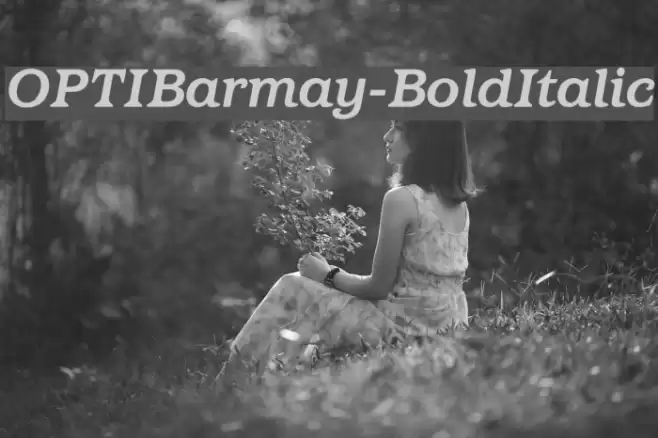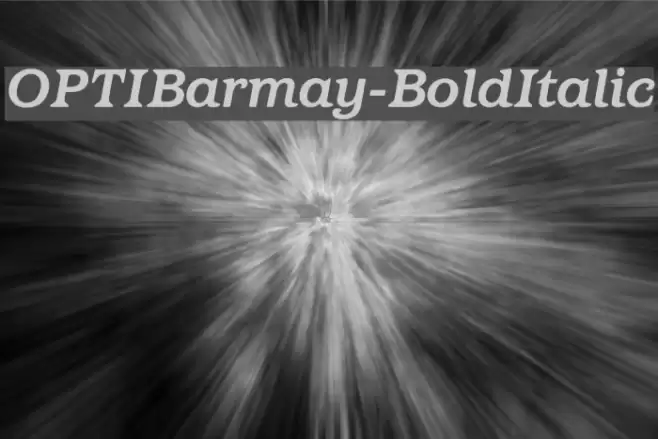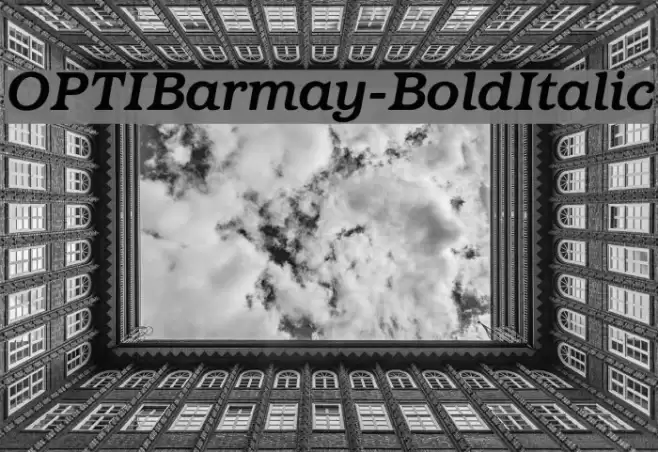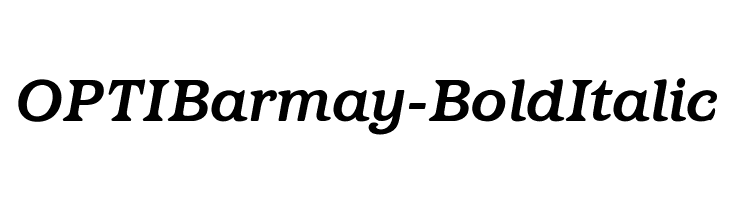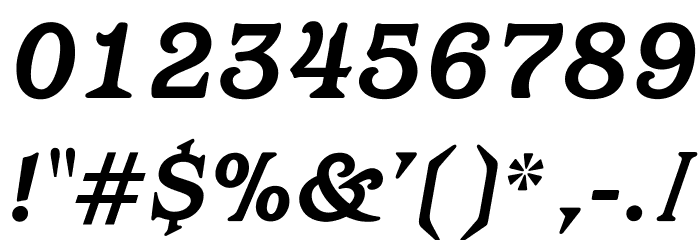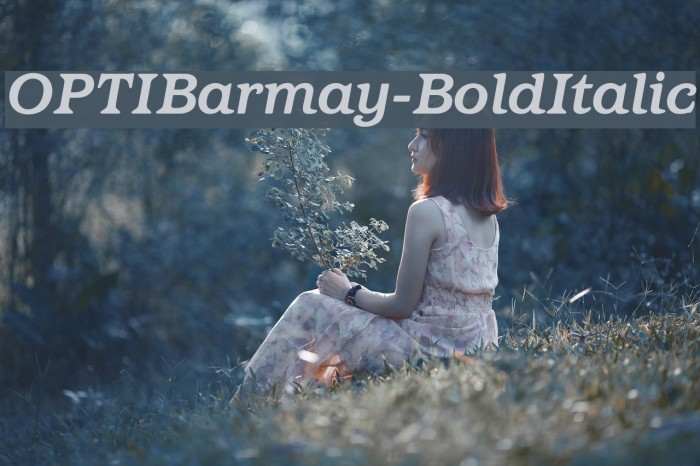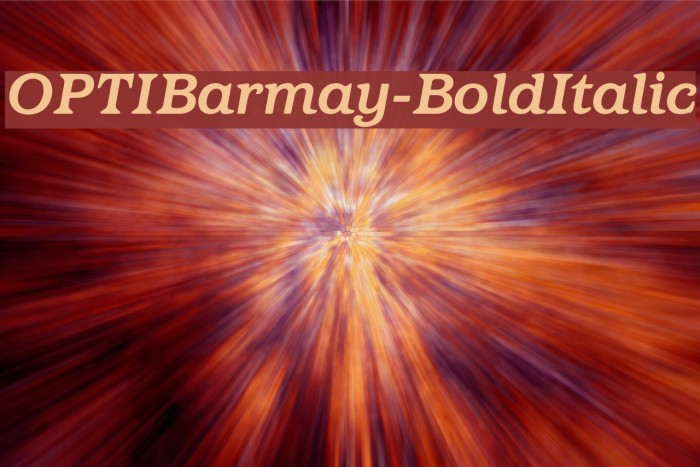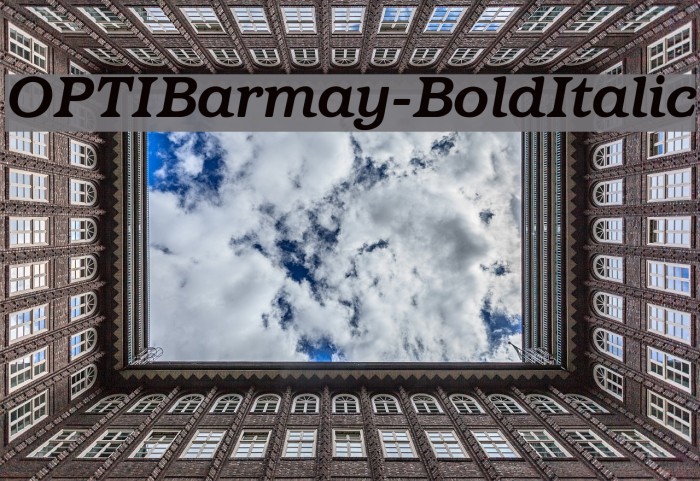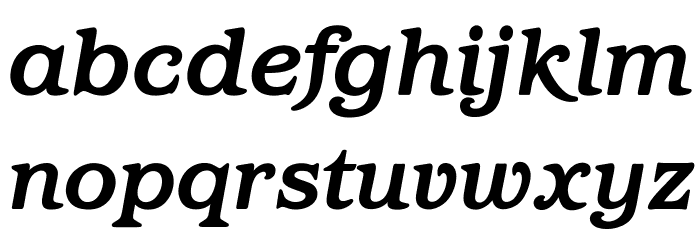
OPTIBarmay-BoldItalic Font
OPTIBarmay-BoldItalic Description
This font features a bold and italic style, combining a classic serif structure with a modern twist. The characters are slightly slanted, giving a dynamic and forward-moving appearance. The serifs are pronounced, adding a touch of elegance and tradition. The font maintains a consistent weight throughout, ensuring readability while providing a strong visual impact. The numerals are well-balanced with the alphabet, and the special characters are distinct and clear, making it suitable for various applications. The overall design is both sophisticated and versatile, making it ideal for projects that require a touch of class and modernity.
A bold, italic serif font with a modern and dynamic style from Uncategorized fonts.
- Proposed Projects: Ideal for branding, editorial design, book covers, and elegant invitations.
- Use Case: Headlines, Logos, Editorial design